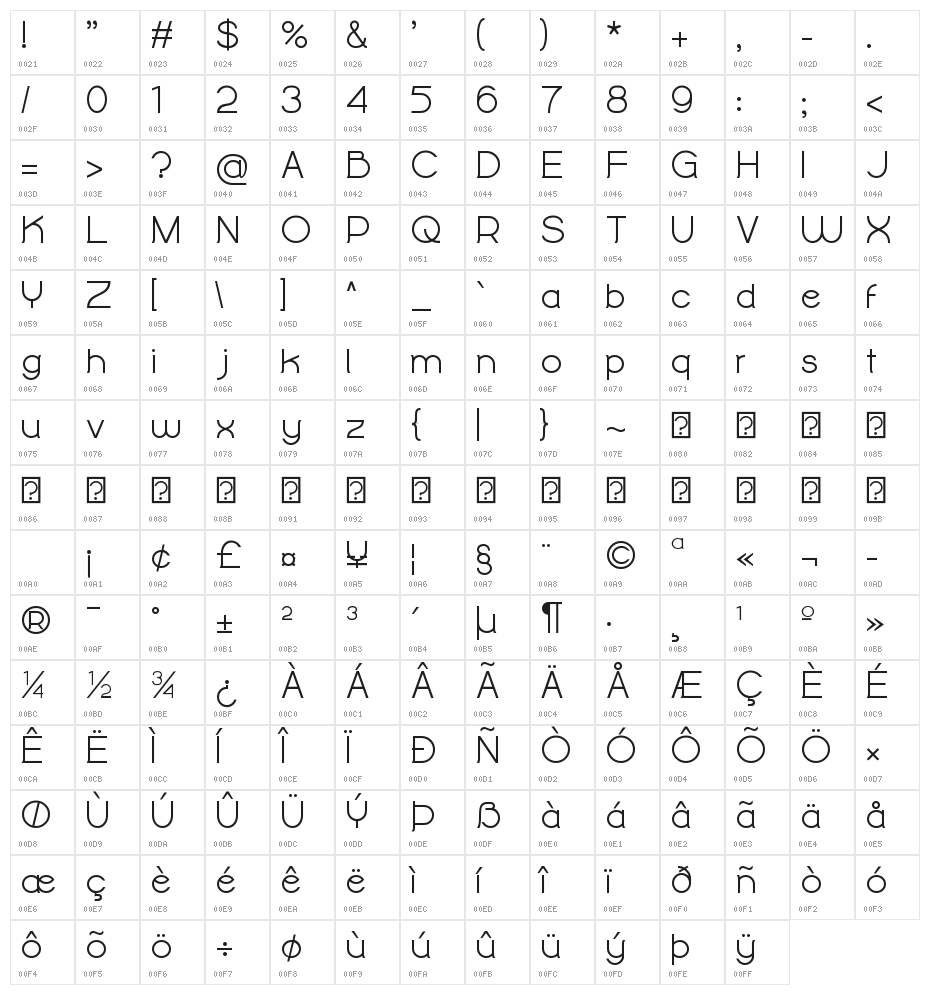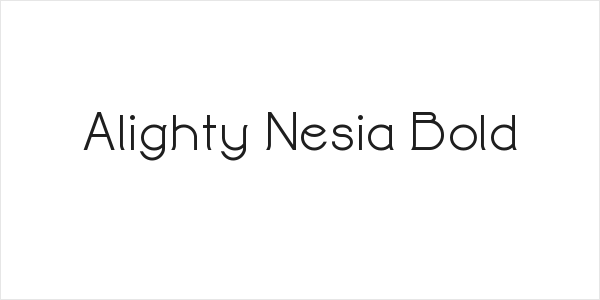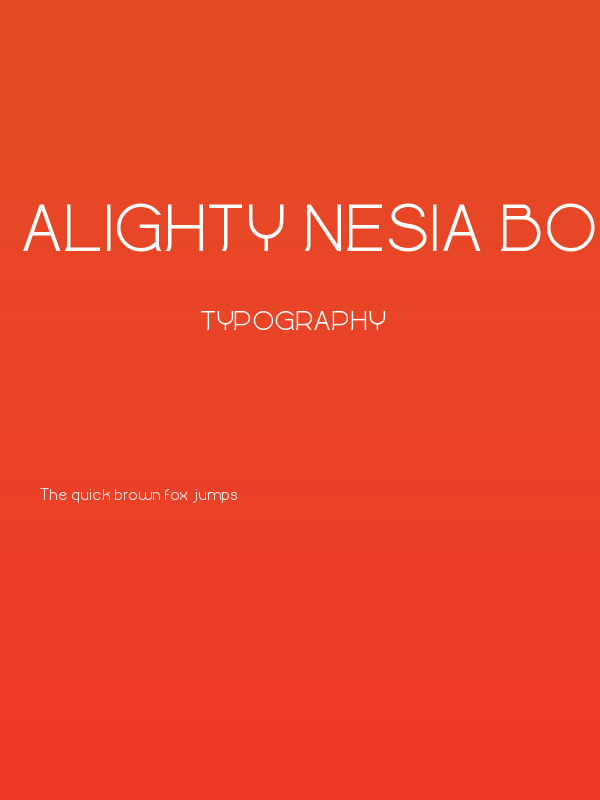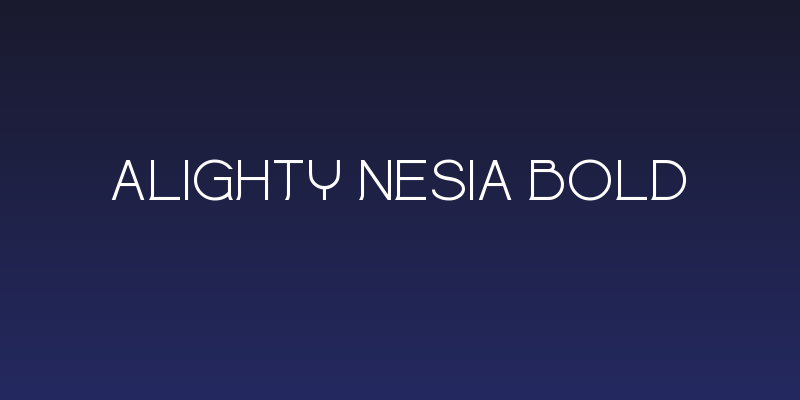
Alighty Nesia Bold Font
Alighty Nesia Bold Description
This font exhibits a modern and clean aesthetic with a geometric sans-serif style. The characters are well-balanced with a consistent stroke width, giving it a uniform appearance. The uppercase and lowercase letters are designed with simplicity and clarity in mind, making them highly legible. The numerals and special characters maintain the same geometric style, ensuring cohesion across all elements. The overall look is sleek and contemporary, suitable for a variety of design applications.
Use CaseHeadlines, Logos, Web design
Proposed ProjectsIdeal for branding, web design, advertising, and editorial projects where a modern and clean look is desired.